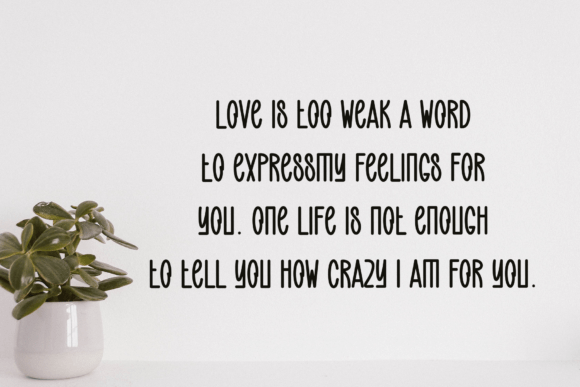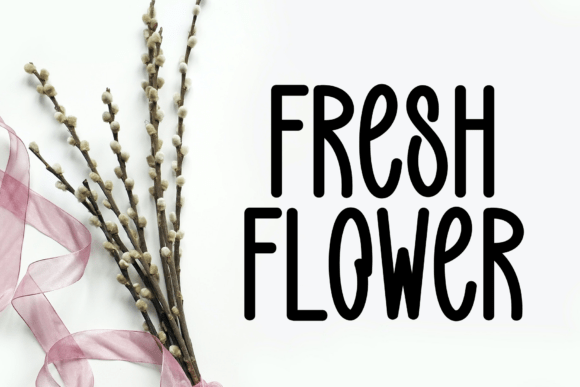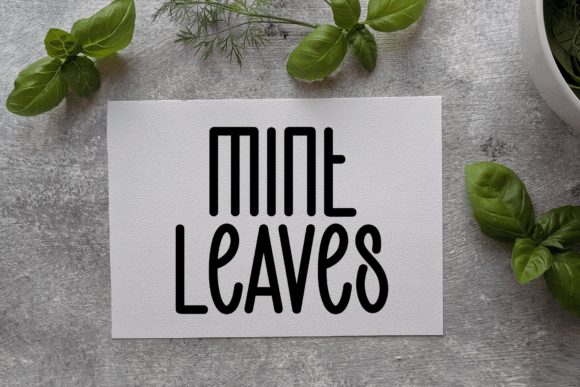
Introduction to Simple Yesterday Font
Have you ever been working on a creative project, staring at a blank page, and suddenly, the perfect font pops into your mind? That’s exactly what happened to many designers when they stumbled upon the Simple Yesterday Font. This beautiful handwritten font has a unique, marker-like quality that screams high-end design without being too formal.
As a valuable design resource, the Simple Yesterday Font offers a perfect balance of elegance and casualness, making it an ideal choice for branding, logos, wedding supplies, greeting cards, and more. Its relaxed, sporty feel is simply captivating, and its transparent background makes it a breeze to work with, whether you’re looking for a free download or a paid option.
Key Features of Simple Yesterday Font
- High-quality design resource ideal for creative projects requiring a nostalgic feel.
- Unique, distressed aesthetic with a transparent background, allowing for seamless integration with various design elements.
- Perfect for use in digital design, including websites, social media graphics, and advertising materials.
Honest Review: Simple Yesterday Font
I recently stumbled upon the Simple Yesterday Font and I must say, it’s a fantastic addition to my design resources. As a designer, I’m always on the lookout for high-quality fonts that can elevate my creative projects.
- ✨ Clear and elegant design: The Simple Yesterday Font has a clean and sophisticated look that works well for a variety of projects, from editorial to branding.
One thing I appreciate about this font is its versatility. It works well for both digital and print projects, and its transparent background makes it easy to overlay on images or graphics.
- ⚠️ Limited font styles: One of the limitations of the Simple Yesterday Font is the limited number of font styles available. While the clean and elegant design is great, I would have liked to see more variations to suit different design needs.
Overall, I’m impressed with the Simple Yesterday Font and would highly recommend it to designers looking for a reliable design resource. Its high quality and free download make it a standout choice for creative projects.
Tips for Getting the Most Out of Simple Yesterday Font
For a high-quality design, use Simple Yesterday Font in combination with a transparent background. This will give your design a clean and modern look. You can also use the font in conjunction with other design resources, such as graphics and images, to create a unique and creative project.
Common Use Cases for Simple Yesterday Font
Simple Yesterday Font is perfect for a variety of creative projects, including social media graphics, blog posts, and print materials. The font’s clean and simple design makes it easy to read and use in a variety of contexts.